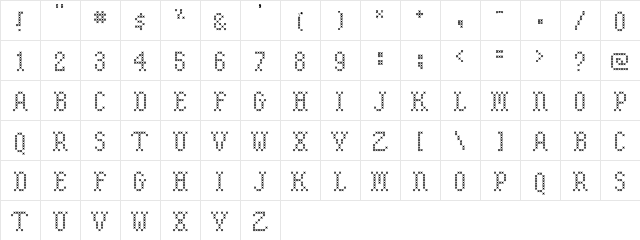
Embroidery Regular
Design Context for Embroidery Typeface
Embroidery is a composed and adaptable typeface that performs quietly and consistently across a wide range of design contexts.